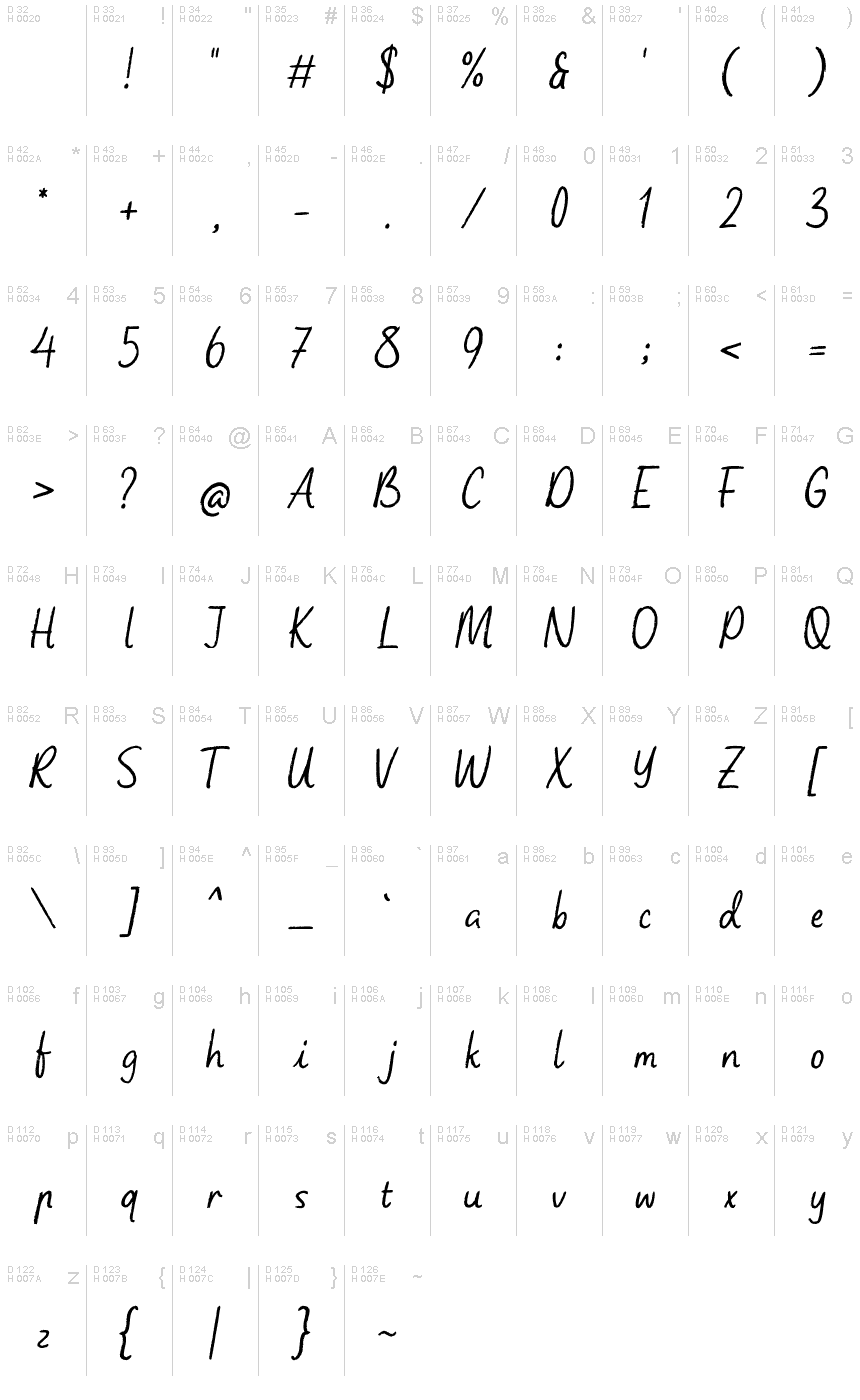
Onlychalk
Onlychalk is a charming semi-light font designed by Allouse Studio. Its handwritten style adds a personal touch to any project, while its chalk-like appearance creates a nostalgic and playful atmosphere.
This versatile font is perfect for invitations and greeting cards, adding a whimsical flair to your messages. It also works well for children's book covers, bringing characters to life with its expressive strokes. With Onlychalk, signage and menu boards become eye-catching focal points, effortlessly capturing attention in cafes and restaurants.
Let your creativity flow with this delightful handwritten chalk font!